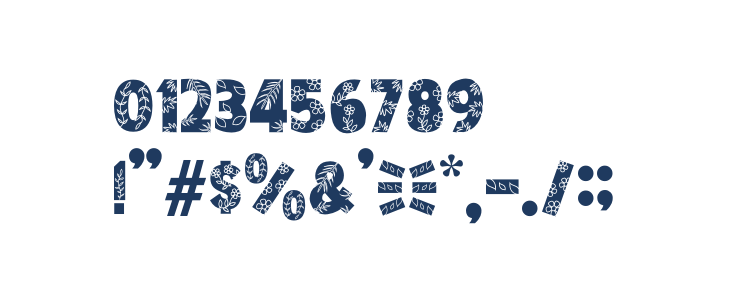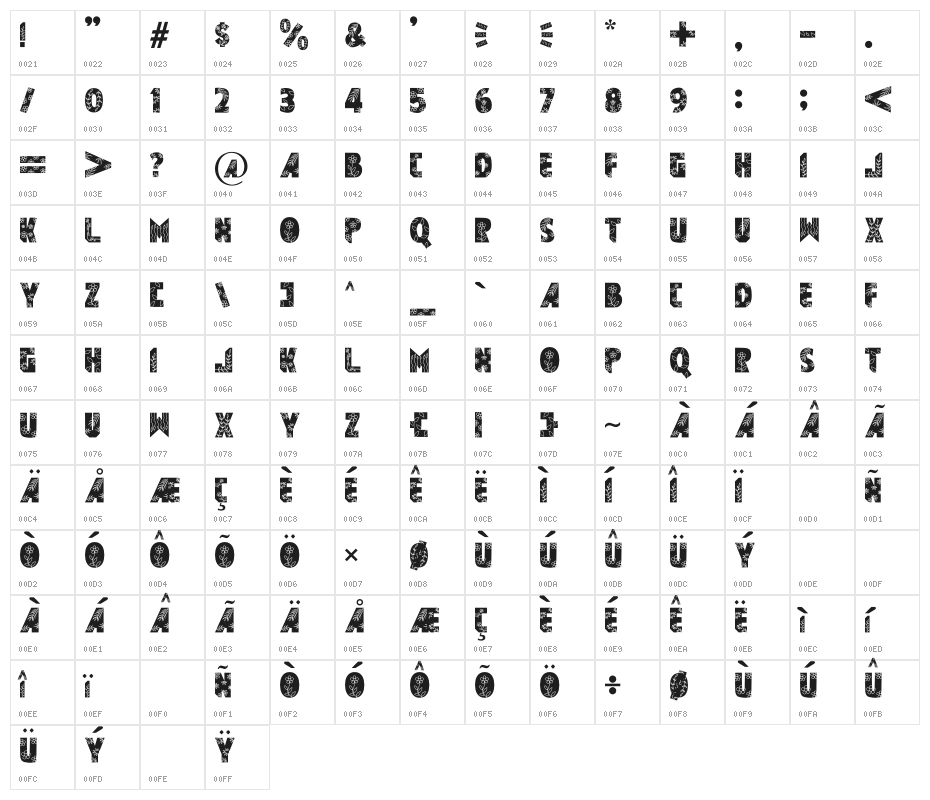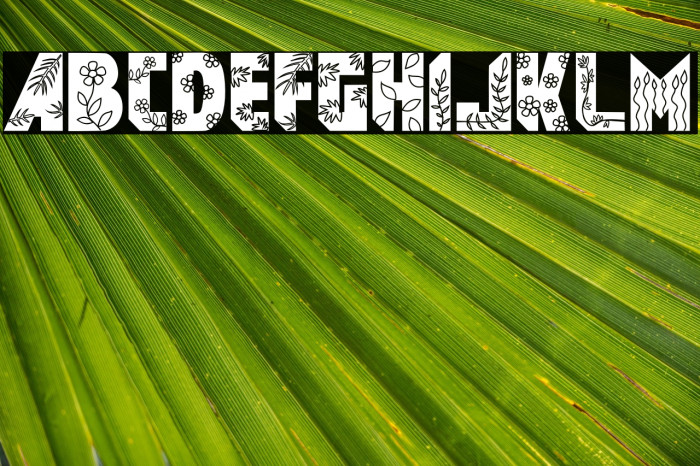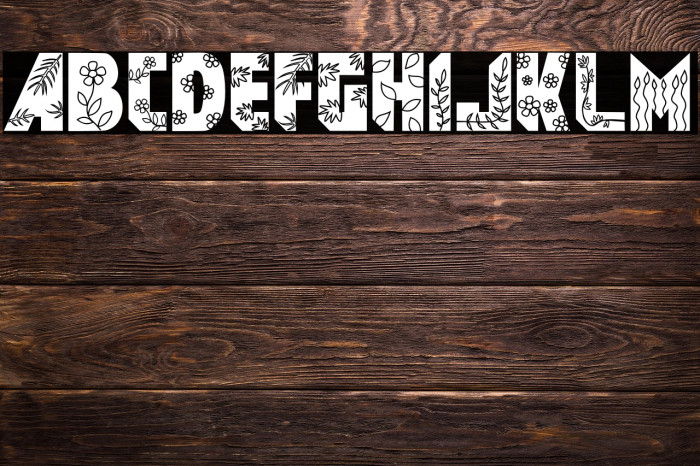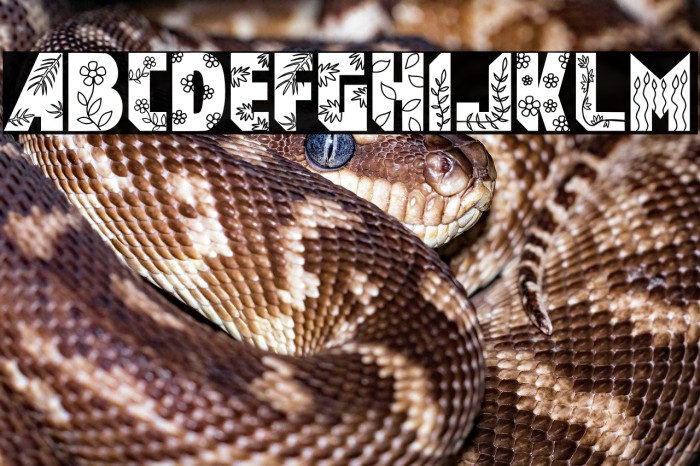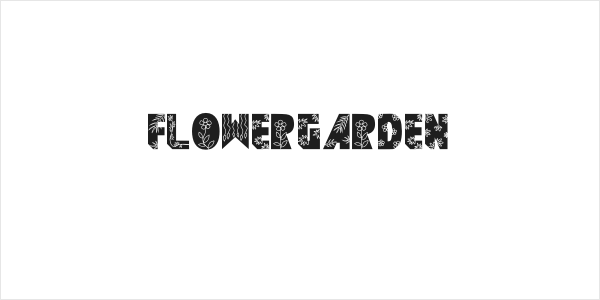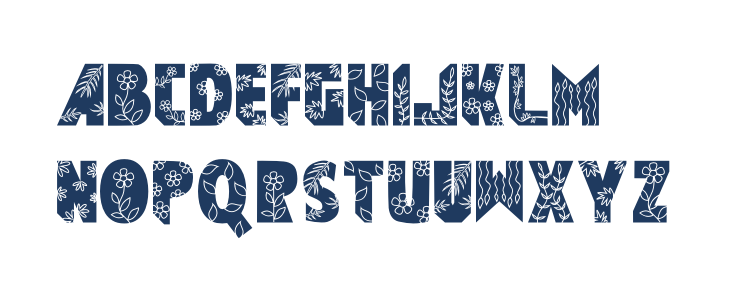
FlowerGarden Font
FlowerGarden Description
This decorative font features bold, blocky letters filled with intricate floral patterns. Each character is adorned with unique botanical elements, including flowers, leaves, and vines, creating a lively and organic appearance. The design is playful yet sophisticated, making it ideal for projects that require a touch of nature or whimsy. The characters are well-defined with a consistent style throughout, ensuring readability while maintaining an artistic flair. This font is perfect for adding a creative and natural element to any design.
| Proposed Projects | Ideal for greeting cards, wedding invitations, eco-friendly branding, and nature-themed posters. |